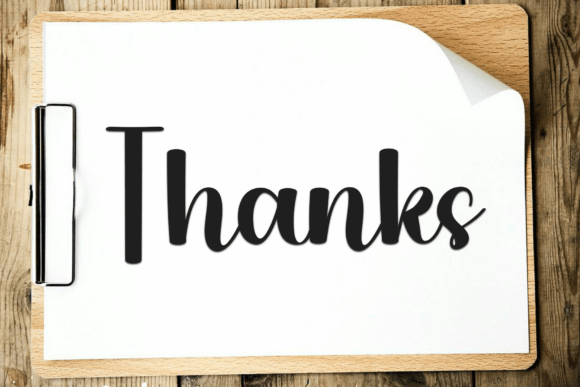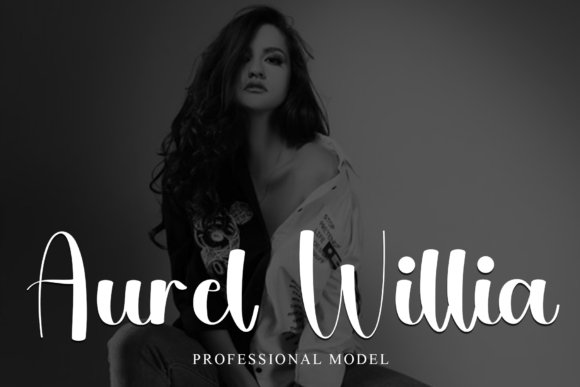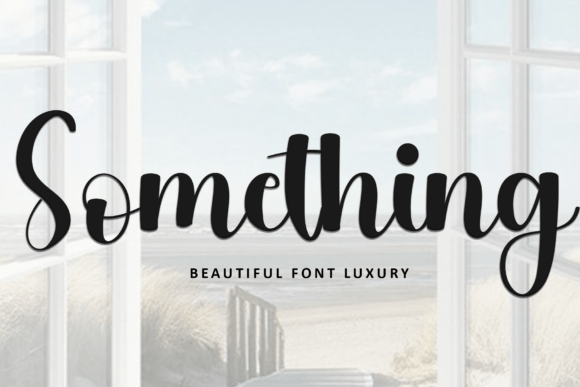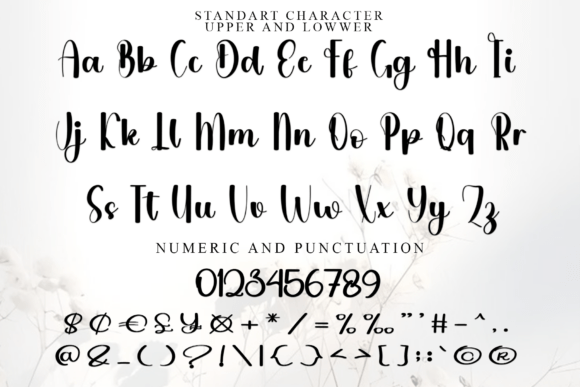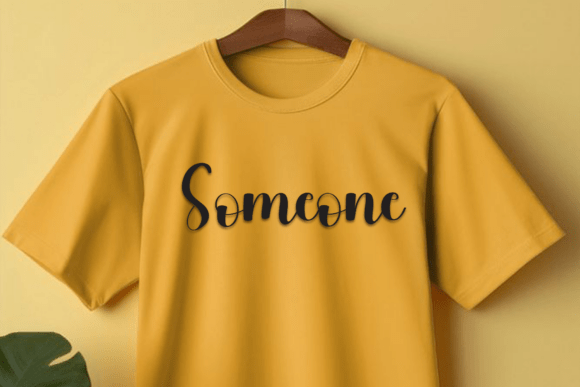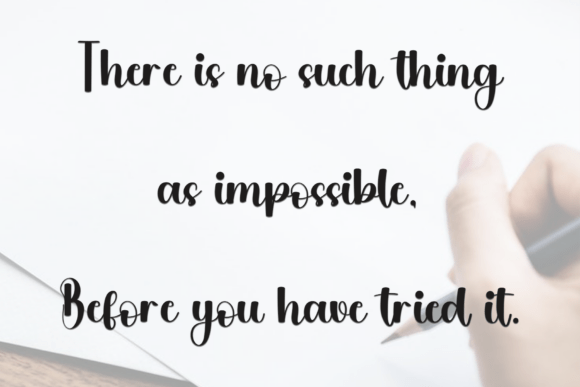
Introducing Georgeous Signature: The Epitome of Elegance and Sophistication
In the world of typography, a font can make all the difference in conveying a brand’s message and aesthetic. For those seeking to make a lasting impression, Georgeous Signature is the perfect solution. This bold, high-contrast script font is designed to exude elegance and visual impact, making it an ideal choice for high-end branding, luxury packaging, cinematic titles, and social media headers.
A Masterful Blend of Traditional and Modern Elements
Georgeous Signature boasts a unique design that seamlessly blends traditional penmanship with a powerful, modern silhouette. The font’s thick, confident stems and delicate, hair-thin connecting curves create a striking contrast that commands attention. This masterful blend of classic and contemporary elements results in a typeface that feels both timeless and trend-setting.
Key Features of Georgeous Signature
- High-contrast design: Georgeous Signature’s bold stems and delicate curves create a dramatic visual effect that adds depth and sophistication to any design.
- Rhythmic flow: The font’s flowing connections and carefully crafted letterforms ensure a smooth, harmonious reading experience.
- Heavy-weighted letterforms: Georgeous Signature’s substantial letterforms convey a sense of prestige and authority, making it perfect for high-end branding and luxury packaging.
Perfect for High-End Applications
Georgeous Signature is designed to make a statement, making it an excellent choice for:
- High-fashion branding: Elevate your fashion brand with a font that exudes luxury and sophistication.
- Luxury product packaging: Make your products stand out with a font that conveys high-end quality and exclusivity.
- Cinematic titles: Add a touch of glamour to your film or video titles with Georgeous Signature’s bold, eye-catching design.
- Social media headers: Create standout social media headers that showcase your brand’s personality and style.
Why Choose Georgeous Signature?
In a crowded market, it’s essential to stand out from the competition. Georgeous Signature offers a unique combination of elegance, sophistication, and visual impact, making it the perfect choice for brands that want to:
- Command attention: With its bold, high-contrast design, Georgeous Signature demands attention and makes a lasting impression.
- Convey luxury and exclusivity: This font’s heavy-weighted letterforms and flowing connections evoke a sense of high-end quality and sophistication.
- Stay on-trend: Georgeous Signature’s modern silhouette ensures that your brand stays current and stylish.
Georgeous Signature is a game-changing font that offers a perfect blend of elegance, sophistication, and visual impact. With its bold, high-contrast design and flowing connections, this typeface is ideal for brands seeking to make a lasting impression. Whether you’re a designer, craftsperson, or brand owner, Georgeous Signature is the perfect choice for those who want to elevate their brand and stand out in a crowded market.